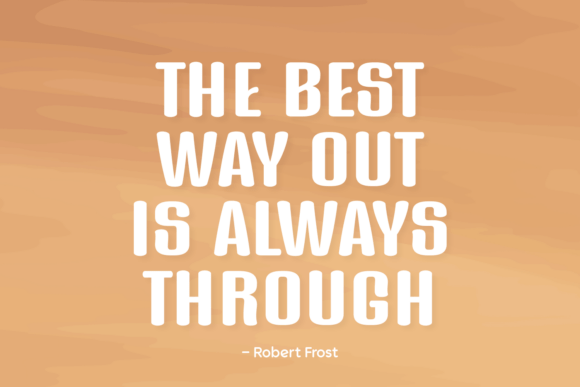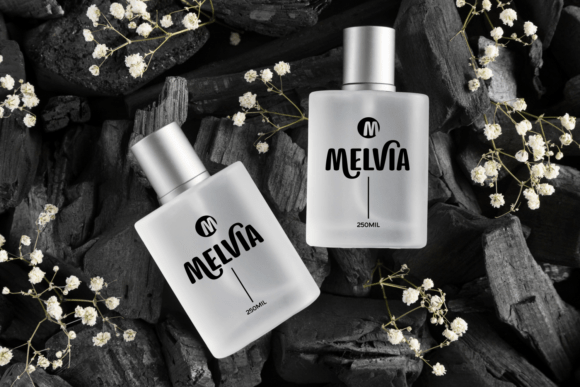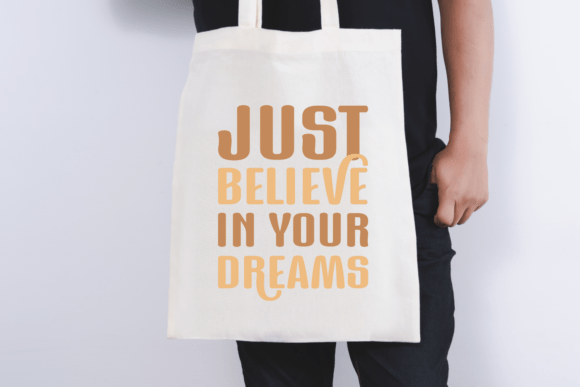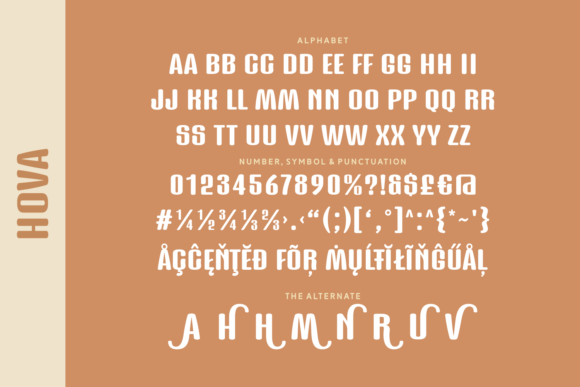
Unleashing the Power of Hova Font
Remember that moment when you stumbled upon the perfect font to elevate your creative project? For designers, it’s a feeling like no other – the thrill of discovery, the rush of excitement, and the promise of taking your design to the next level. That’s exactly what happened when the Hova Font burst onto the scene, leaving a trail of creativity in its wake. With its bold strokes and dramatic curves, this sans serif font has become the go-to choice for designers looking to push boundaries and create something truly unique.
The Hova Font is more than just a design resource – it’s a high-quality tool that can take your creative projects to new heights. Whether you’re working on a music poster, a logo, or a branding campaign, this font’s extended ascenders and descenders create an eye-catching rhythm that’s sure to grab attention. And with its transparent background and free download option, you can experiment with the Hova Font without breaking the bank. So, what are you waiting for? Dive into the world of Hova Font and discover the possibilities it has to offer.
Key Features of Hova Font
- High-quality font design with a transparent background, perfect for creative projects that require a unique aesthetic.
- Features a large character set, including uppercase and lowercase letters, numbers, and punctuation marks.
- Designed to be highly scalable, with a resolution of 300 DPI, making it ideal for use in various creative projects, from print to digital media.
- Unique and stylish font, perfect for adding a touch of sophistication to any design, from logos to typography-based art.
- Supports multiple languages, making it a versatile design resource for creative professionals working on international projects.
Honest Review: Hova Font
I recently had the chance to work with Hova Font, a free design resource that I was both excited and skeptical about. As a designer, I appreciate high-quality fonts that can elevate a creative project, and Hova Font did not disappoint. One of the things that stood out to me was the font’s versatility, with a wide range of styles and weights that can be easily customized to fit any design aesthetic.
- ✨ The Hova Font is incredibly easy to use, even for designers who are not font experts.
- ✨ The font is highly customizable, with features like transparent background and advanced kerning capabilities.
Overall, I was impressed with Hova Font and would definitely recommend it to designers working on creative projects. While it may not be perfect, its strengths far outweigh its weaknesses, making it a valuable addition to any design resource library.
Tips for Getting the Most Out of Hova Font
To get the most out of Hova Font, be sure to use it on a transparent background to achieve a seamless design. You can also experiment with different font sizes and colors to create a unique look that suits your creative project.
Hova Font is a versatile design resource that can be used in a variety of creative projects, including logos, social media graphics, and presentations. Its high-quality design makes it an excellent choice for any project that requires a professional look.